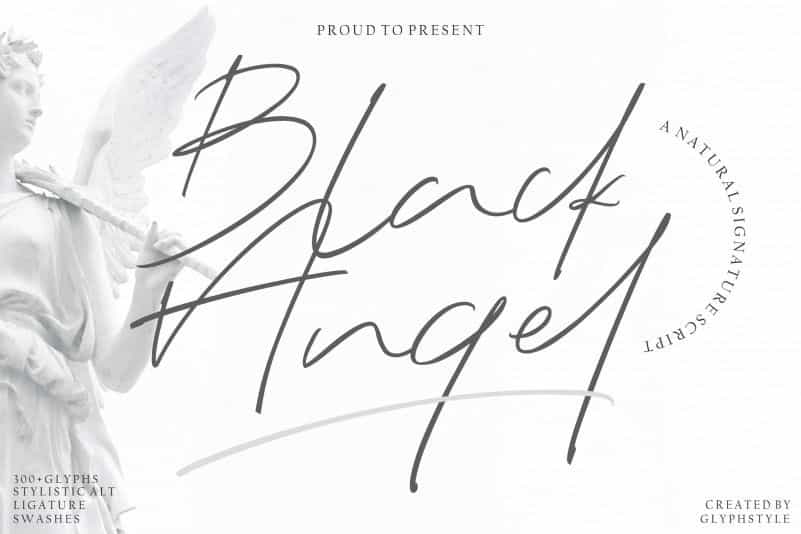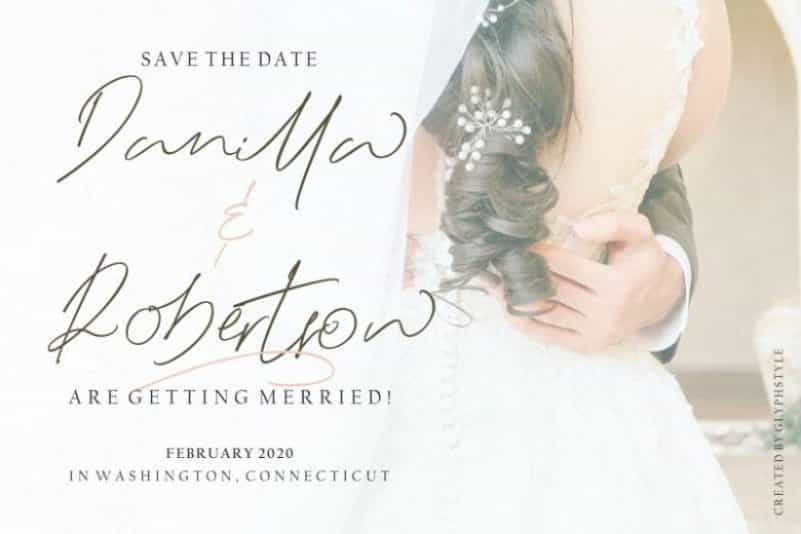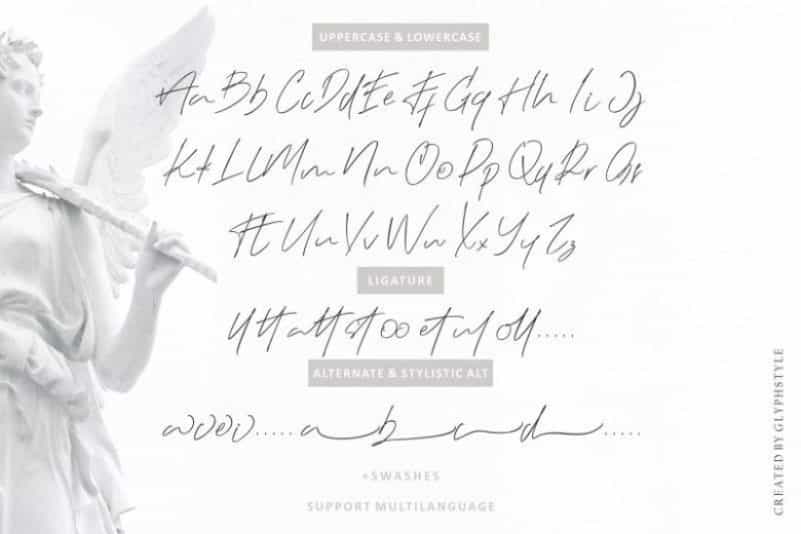
Black Angel – is the characteristic font with natural style & flow. Gorgeous and classy fonts with natural hand scratches. This signature font is the best for weddings, watermarks, branding like interviews, business cards and product logos.